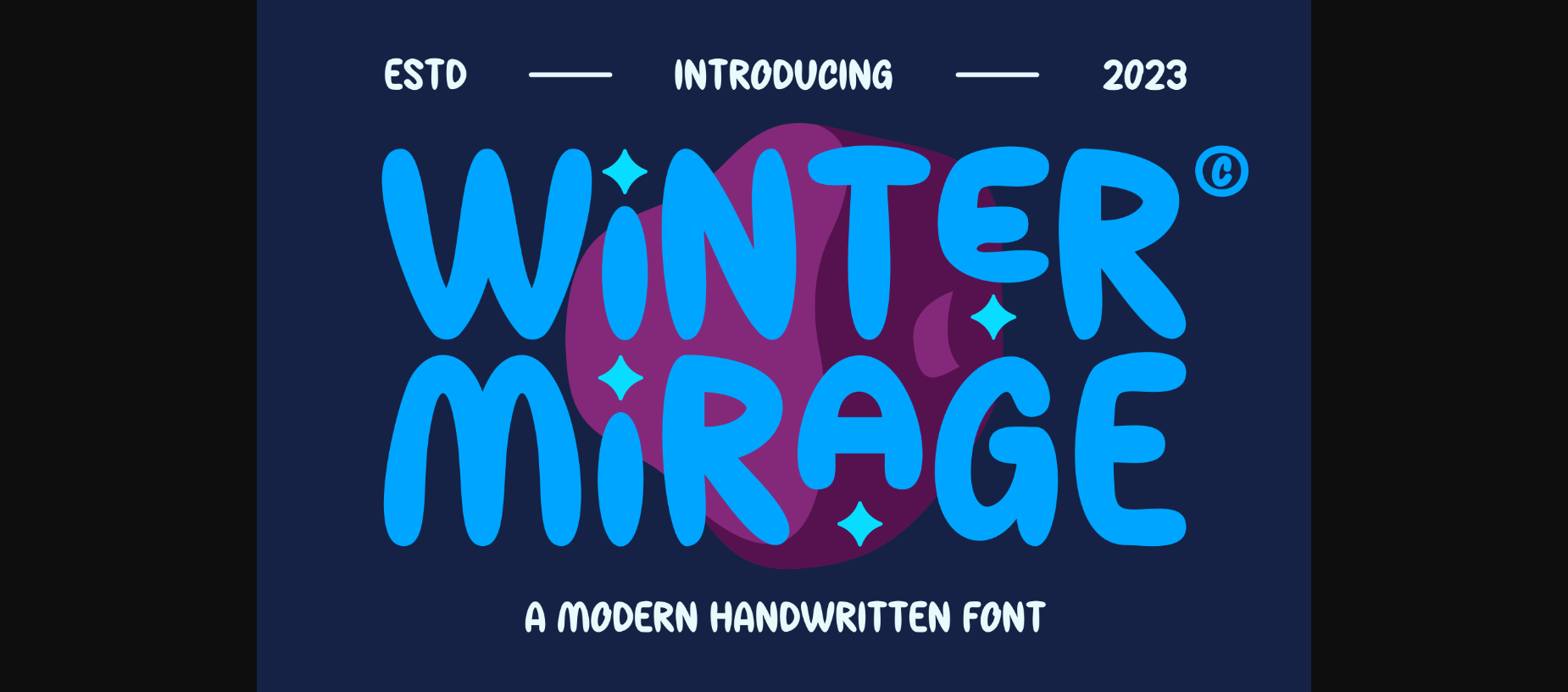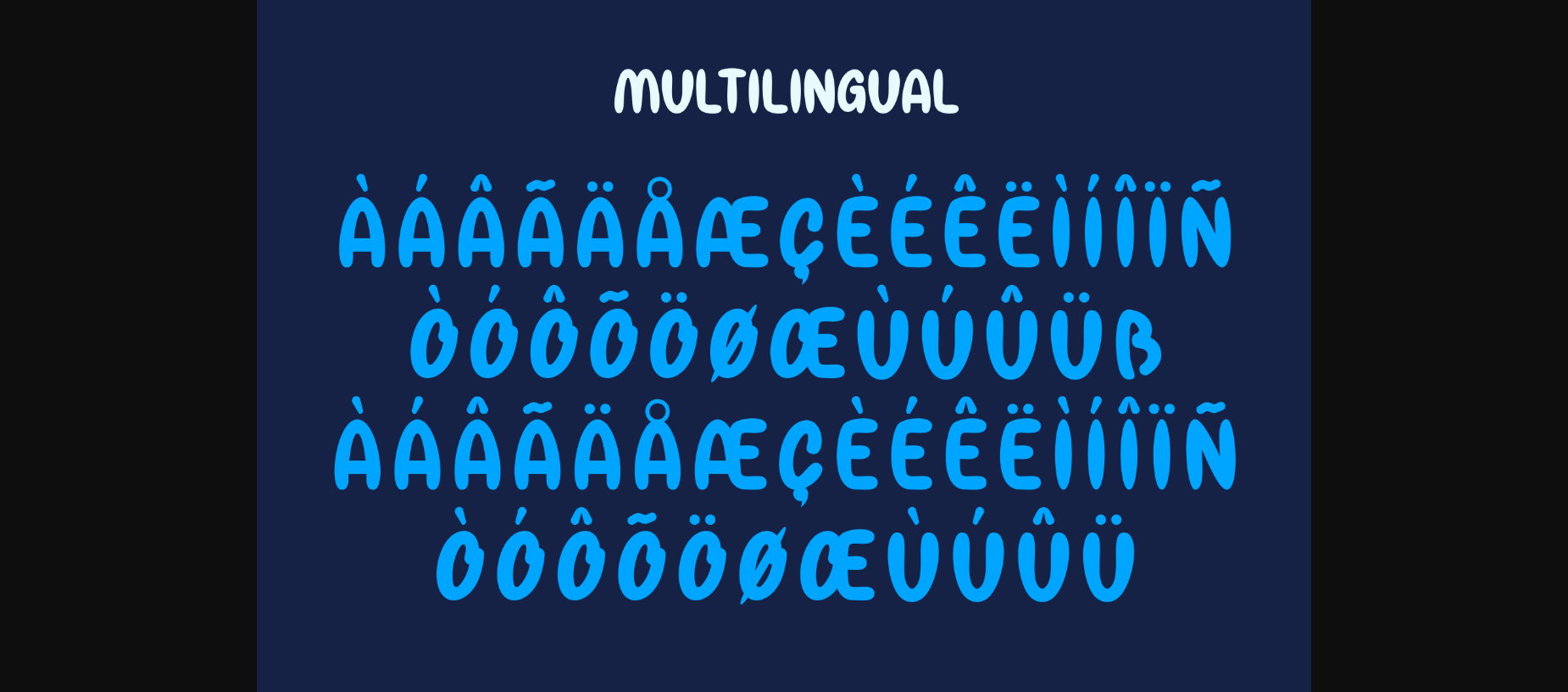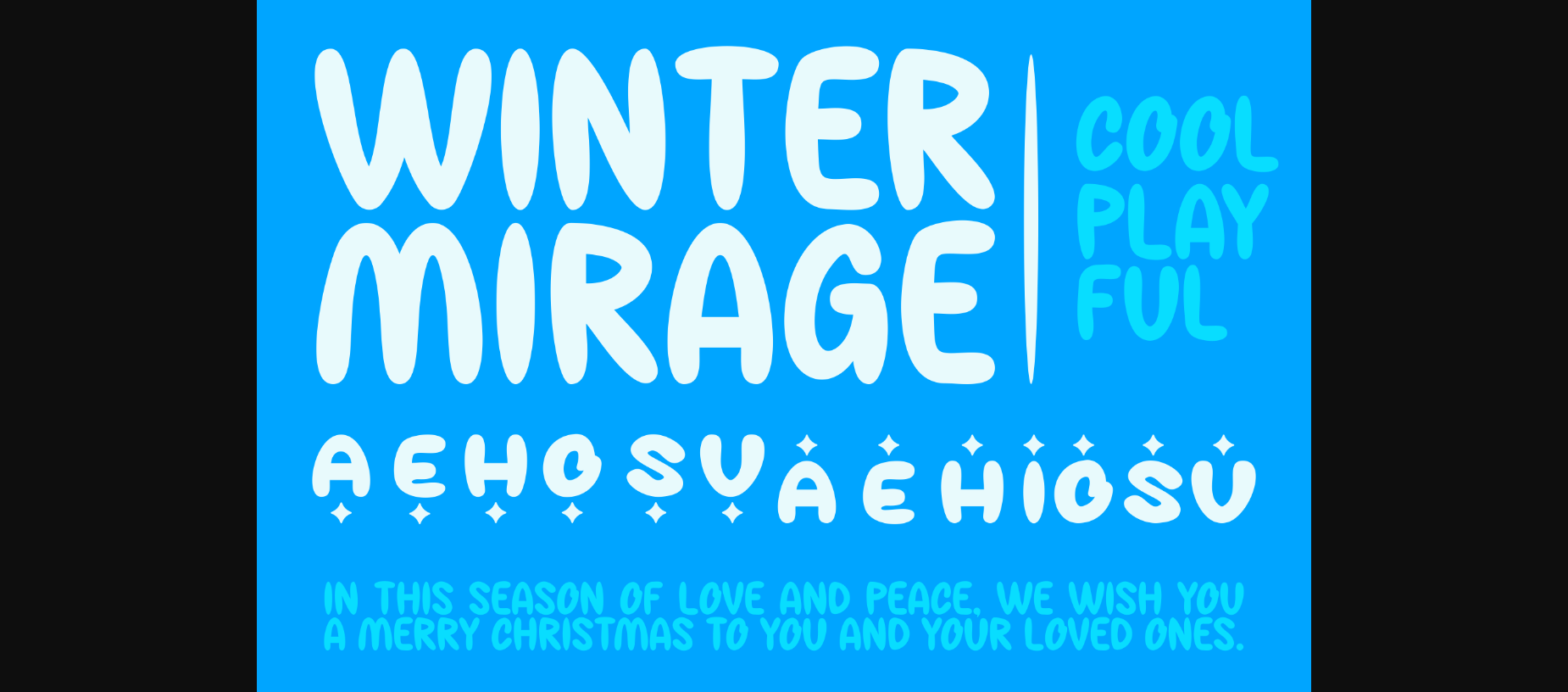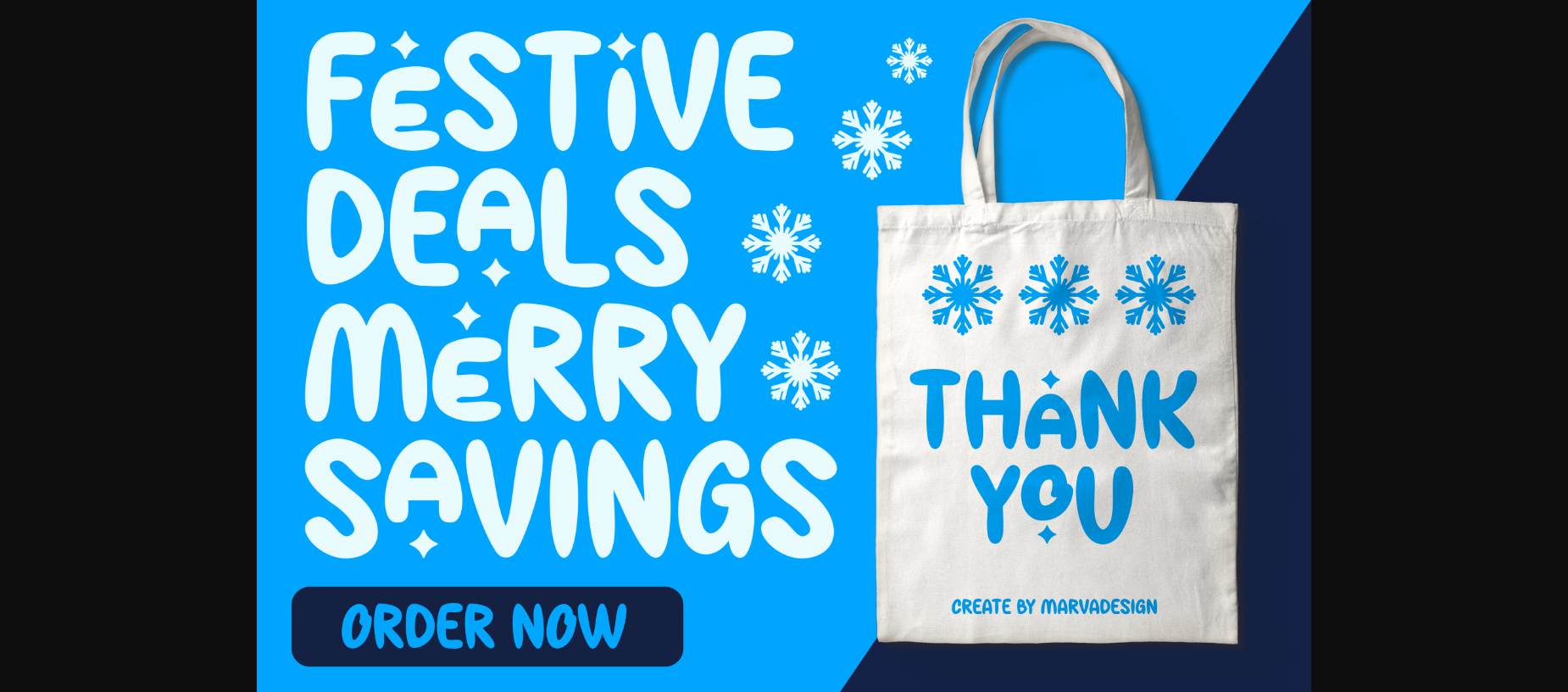
About Winter Mirage Font
Winter Mirage is a delightful chubby Christmas font, perfect for adding a playful touch to your holiday projects. With its round and fun design, it brings a cheerful vibe to any text. Whether you’re crafting greeting cards, party invitations, or festive banners, Winter Mirage adds a whimsical charm that captures the magic of the season. Get ready to spread joy and merriment with this cheerful font!